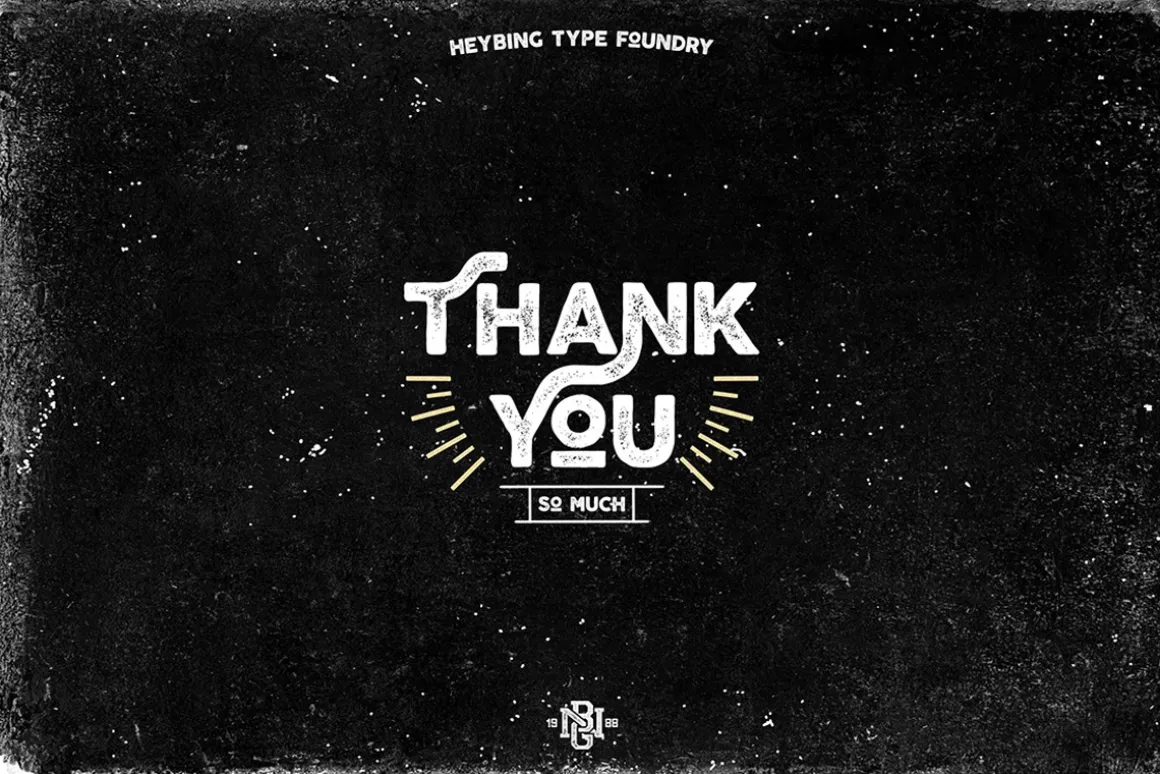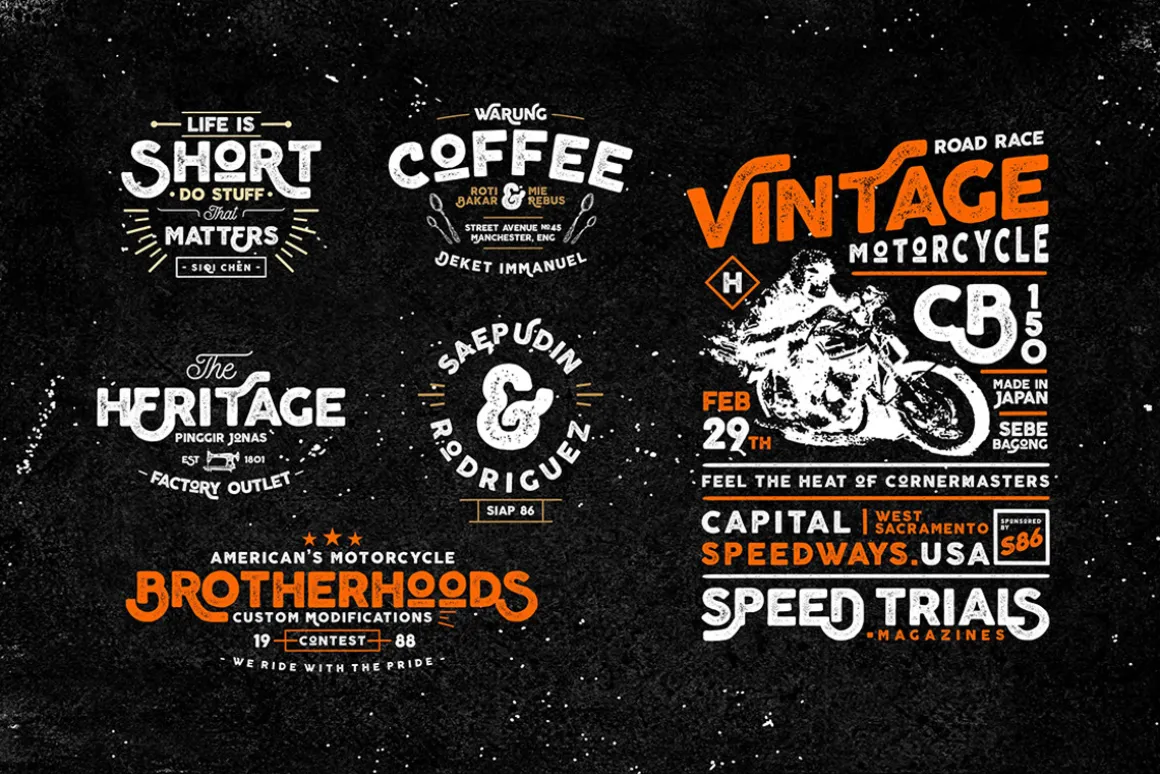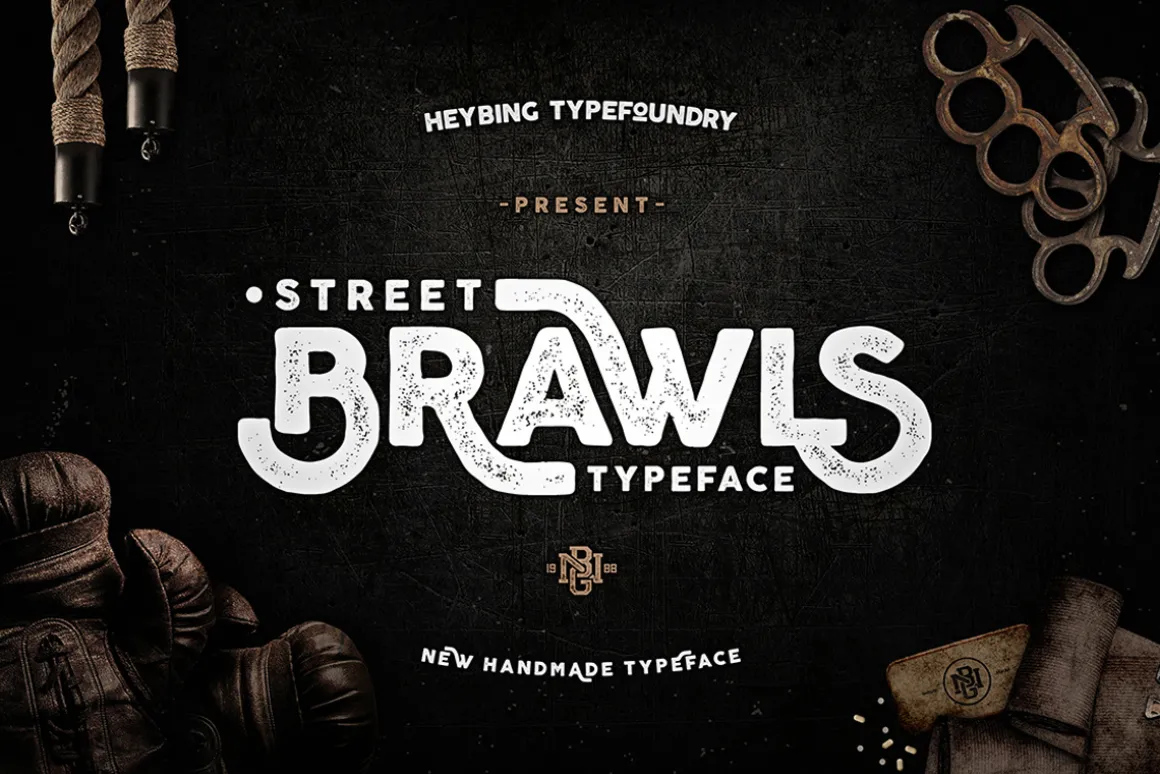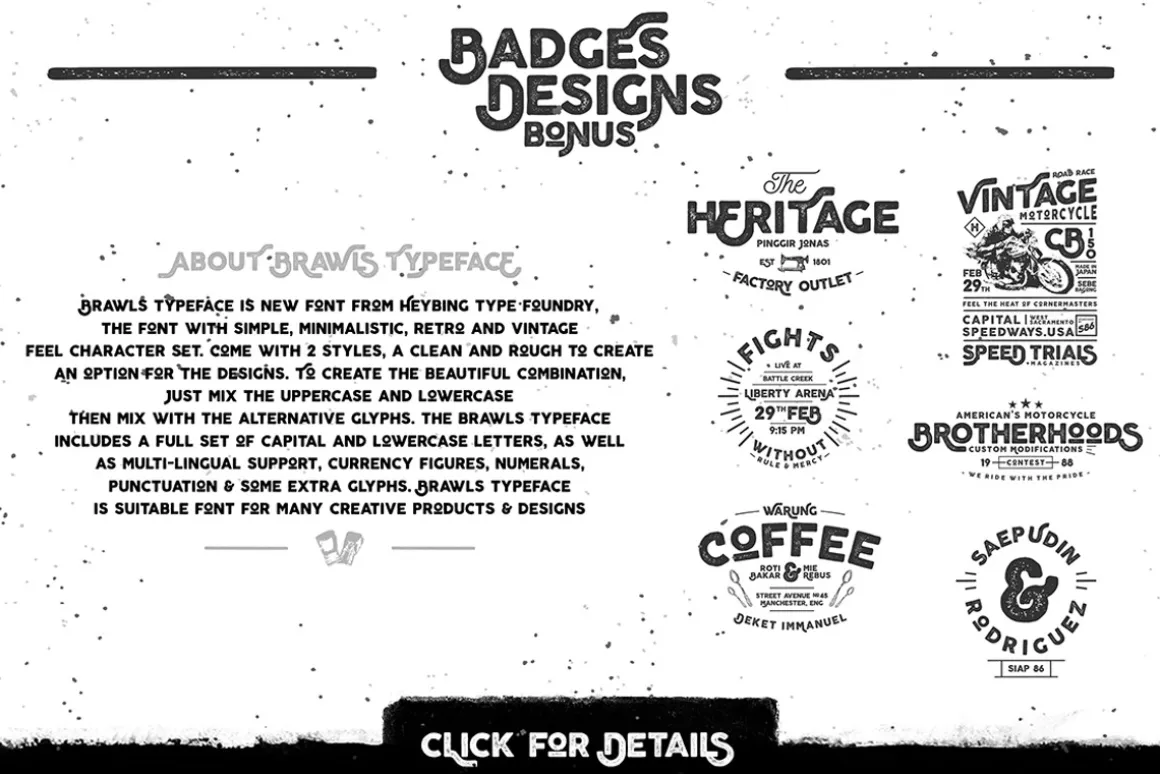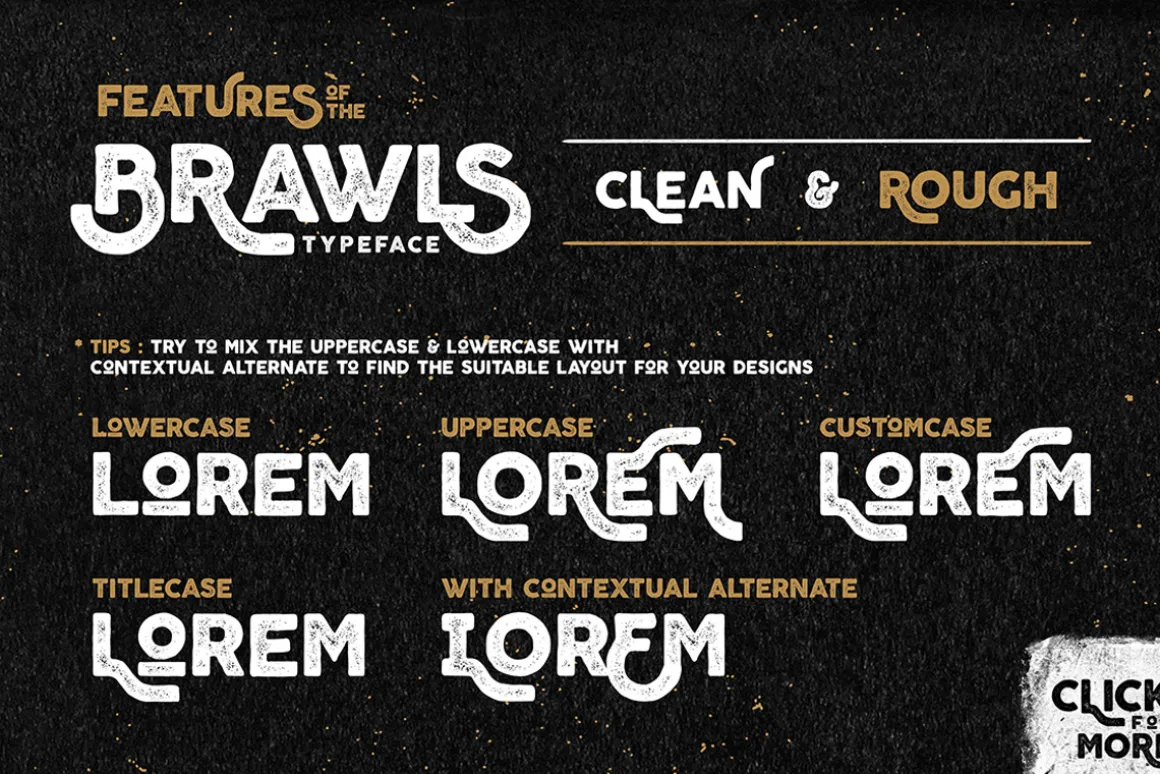
Brawls Typeface is new font from Heybing Supply Co, the font with simple, minimalistic, retro and vintage feel character set. Come with 2 styles, a clean and rough to create an option for the designs. To create the beautiful combination, just mix the uppercase and lowercase then mix with the alternative glyphs. The brawls typeface includes a full set of capital and lowercase letters, as well as multi-lingual support, currency figures, numerals, punctuation & some extra glyphs.
- Character Set A-Z
- Numerals & Punctuations (OpenType Standard)
- Accents (Multilingual characters)
- Stylistic Alternates
Brawls typeface is suitable font for many creative products & designs.